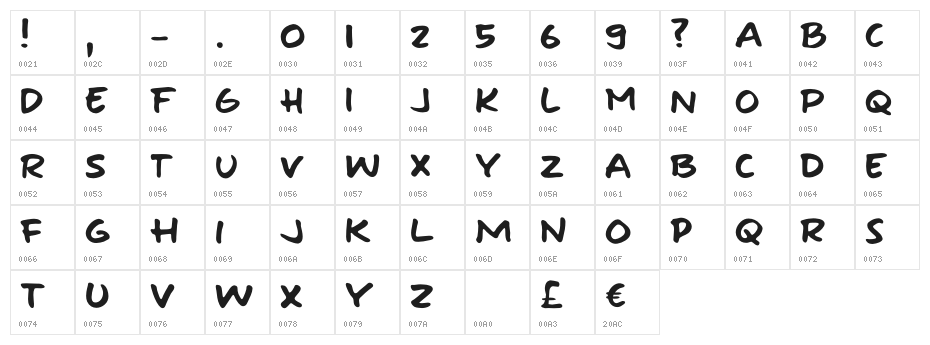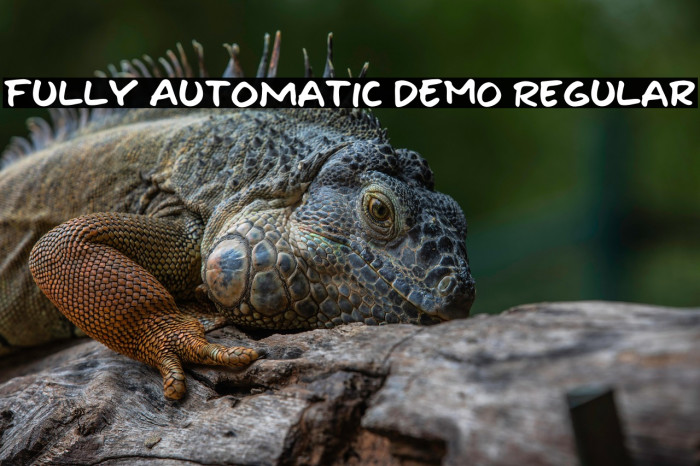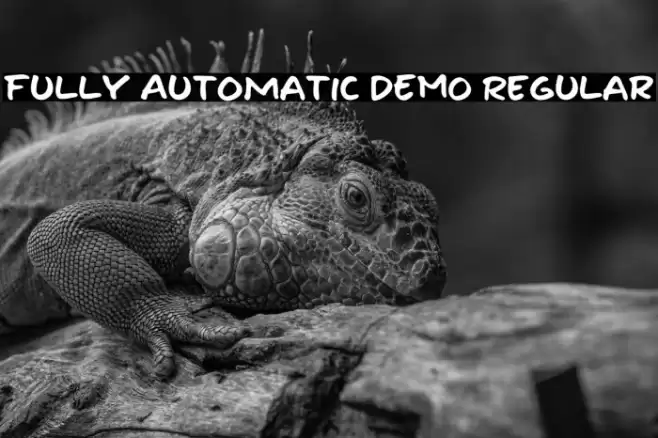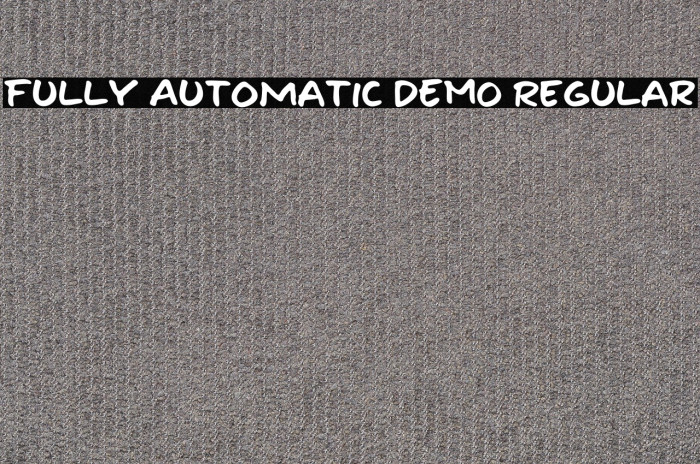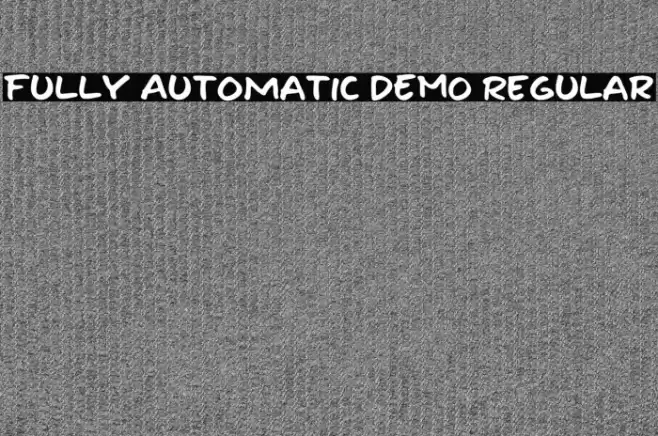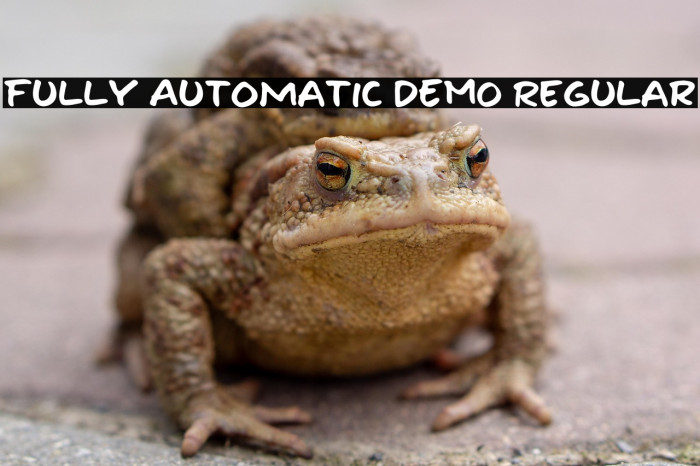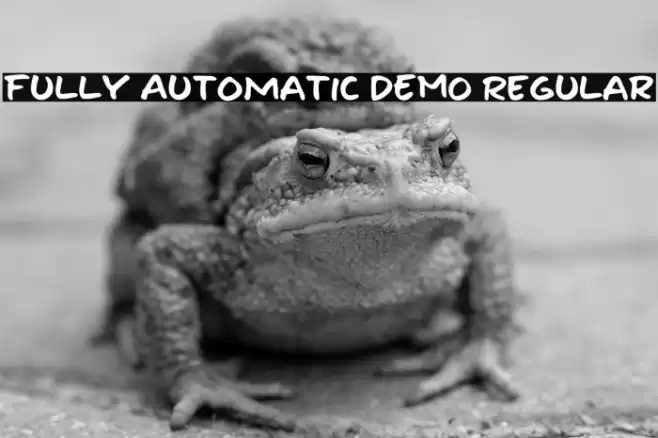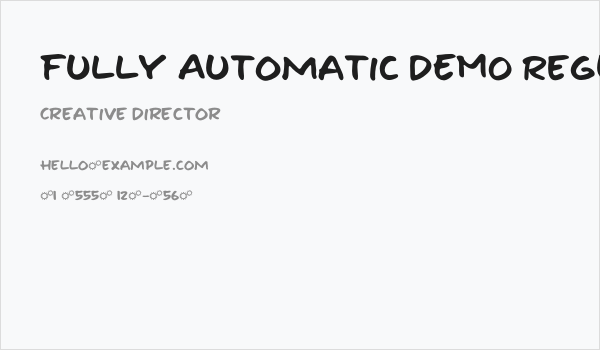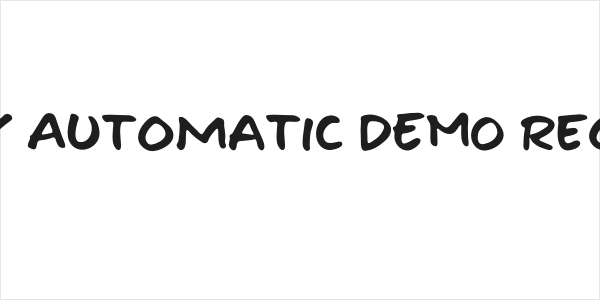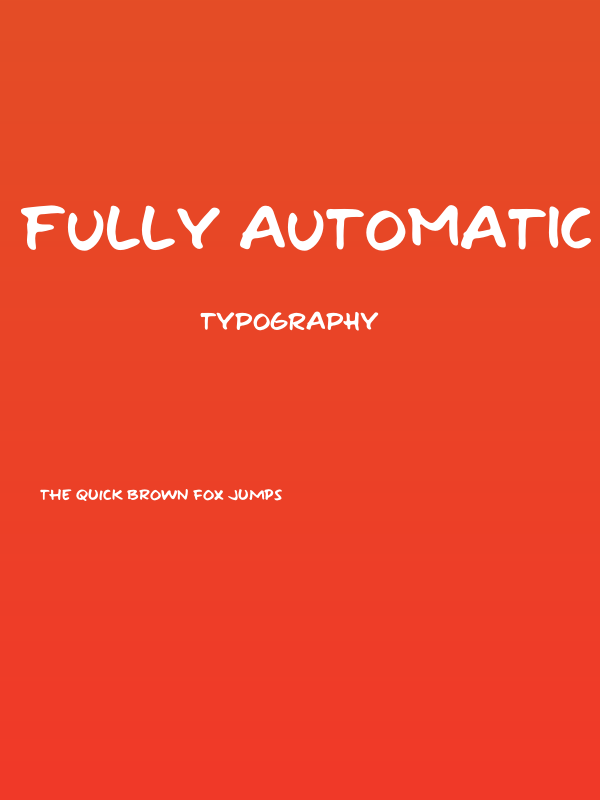
Fully Automatic DEMO Regular Font
Fully Automatic DEMO Regular Description
This font features a playful and dynamic style, characterized by its bold and rounded letterforms. The strokes are thick and consistent, giving it a strong presence on the page. The characters have a hand-drawn appearance, with slight irregularities that add to its charm. The uppercase and lowercase letters maintain a cohesive look, while the numbers and special characters integrate seamlessly with the overall design. This font's unique personality makes it stand out, making it suitable for creative and informal applications.
| Proposed Projects | Ideal for children's books, playful branding, posters, and creative projects. |